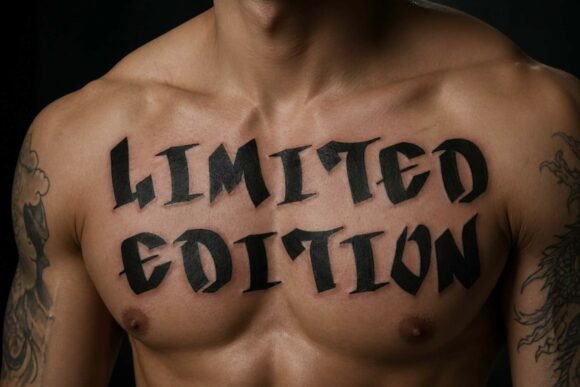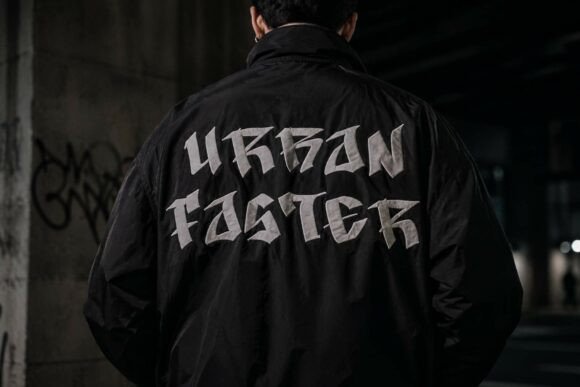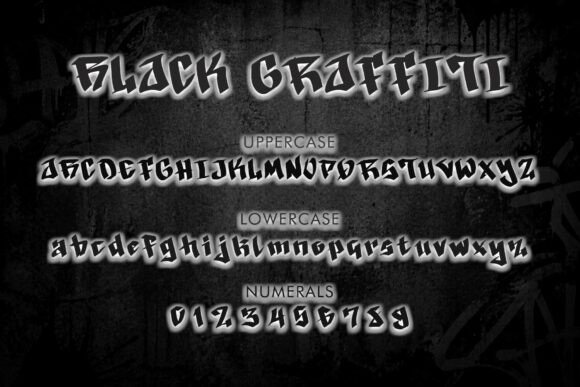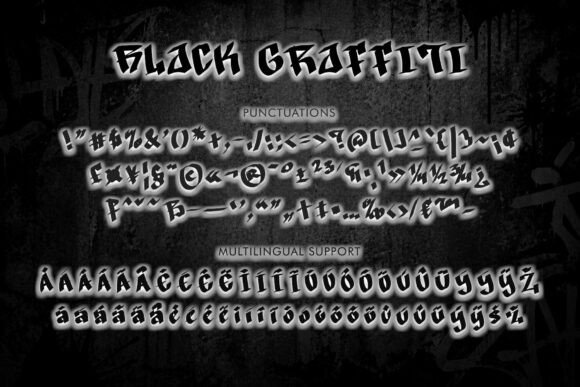
Unleash Your Urban Edge with the Black Graffiti Font
You’ve been staring at a blank canvas, feeling the itch to create something bold and unforgettable. You know exactly what you want – a font that embodies the raw energy of the streets, something that screams rebellion and unapologetic attitude. That’s where the Black Graffiti Font comes in – a high-impact display typeface designed to give your projects a razor-sharp edge.
This versatile font is not just a design element, but a statement piece that bridges the gap between underground street art and modern edgy branding. With its aggressive, angular letterforms and rhythmic, hand-drawn accents, the Black Graffiti Font is the ultimate choice for designers who want to make a lasting impression. Whether you’re creating album covers, logos, or social media headers, this font is sure to add a touch of urban sophistication to your work.
- Font Style: A distressed, graffiti-inspired font with a bold and edgy look.
- Unique Characteristics: Features a mix of uppercase and lowercase letters, with intricate details and textures that give it a unique, hand-painted feel.
Black Graffiti Font Review
I recently had the chance to work with the Black Graffiti Font, and I must say it’s a unique and eye-catching choice. ✨ The bold, graffiti-style letters immediately grab attention and add a touch of edginess to any design project.
Here are some aspects that I think work well with this font:
- ✨ Its versatility: The Black Graffiti Font can be used in a variety of contexts, from fashion and music to urban and street art.
- ✨ Its boldness: The font’s thick lines and sharp edges make it perfect for creating bold headlines and titles.
- ✨ Its edginess: The graffiti-style letters add a touch of coolness and rebellion to any design.
However, I do have a few concerns:
- ⚠️ Legibility: In some cases, the font’s boldness can make it difficult to read, especially in smaller sizes or when used in large blocks of text.
- ⚠️ Limited use: While the font is versatile, it may not be suitable for more conservative or traditional design projects.
Overall, I think the Black Graffiti Font is a great choice for designers who want to add some excitement and edginess to their work. While it may have some limitations, it’s a unique and effective tool that can help take designs to the next level.
For the most striking results, pair Black Graffiti Font with bold colors and contrasting backgrounds.
Use this font for:
- Street art and graffiti-inspired designs.
- Urban-themed posters and flyers.
- Edgy social media graphics and captions.